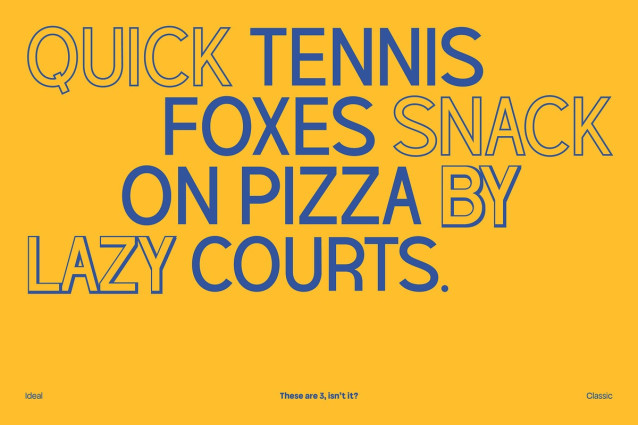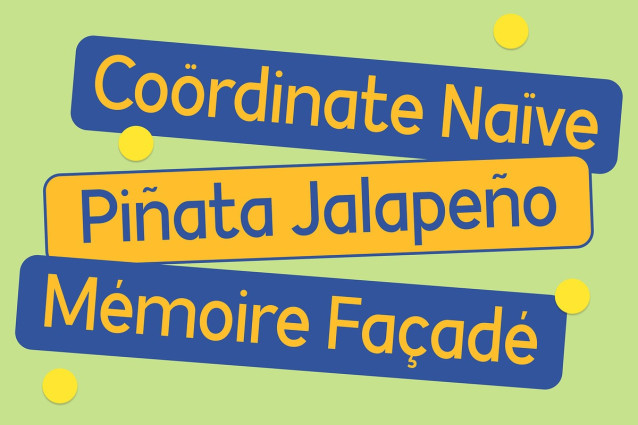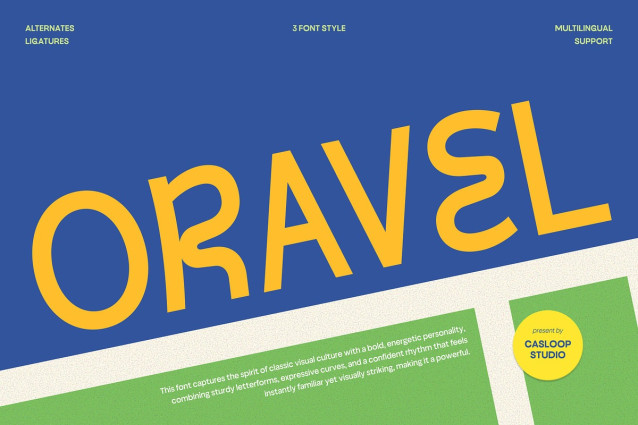
Oravel is a classic stylistic display font rooted in vintage sports aesthetics, crafted to feel bold, energetic, and instantly familiar. Its design highlights distinctive characters such as A, R, S, J, C, and Y, shaped with wide curves, rounded terminals, and a smooth visual rhythm that creates a strong yet approachable presence.
This balance of expressiveness and clarity makes Oravel especially effective for logos, headlines, packaging, and promotional visuals that aim to stand out confidently while retaining a timeless, friendly appeal across sports, food, and classic branding contexts. Recommended pairing with: Playfair Display, Montserrat, Inter, Helvetica, Futura, Bodoni